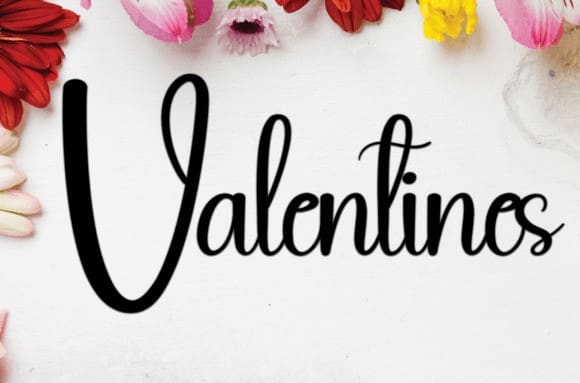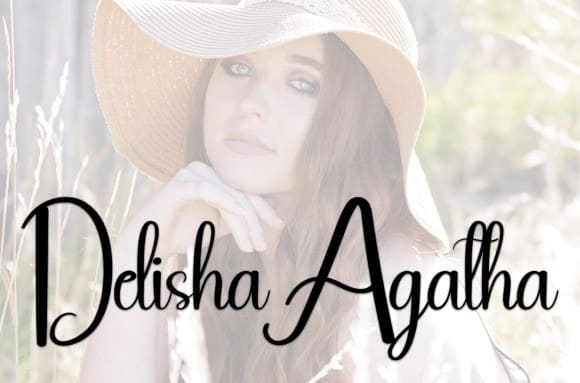
White Rope Font
White Rope Font is a sweet and friendly handwritten font. Creative and cute, this font is ideal for writing wedding invitations, cards, or any other design that might need a fun touch!